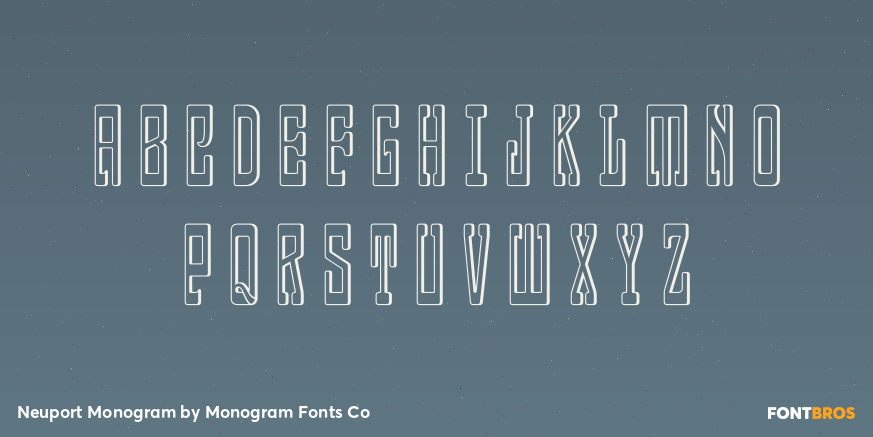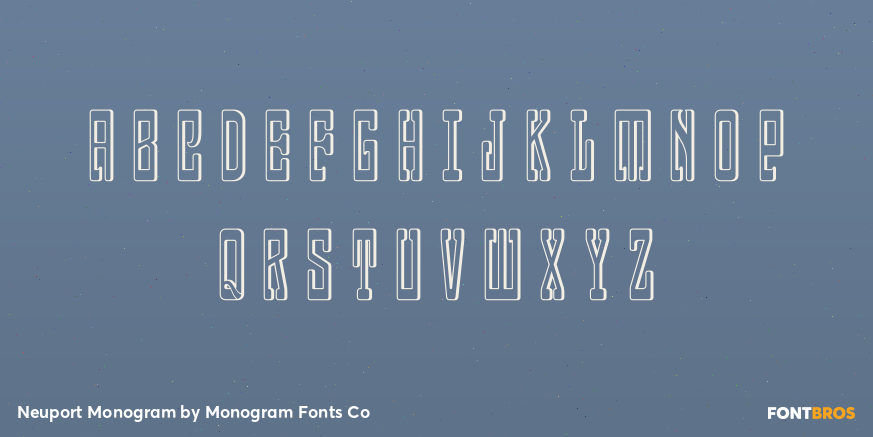
Neuport Monogram
Font Family by Monogram Fonts Co
The inspiration source for Neuport Monogram is the 1934 Book of American Types by American Type Founders. Found in that specimen book was a sophisticated two-color Art Deco style monogram called Newport Monograms which was available in limited size metal castings. This wonderful typeface is now digitally recreated, revived, and updated for modern use.
Neuport Monogram can create one, two, or three letter monograms as well as two color monogram styles. From the original Drop Shadow Outline style to the Solid variant, this easy to use monogram style is a classic.